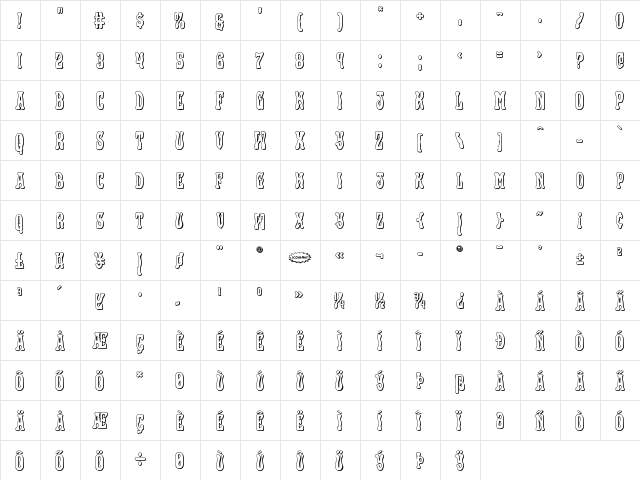
Black Gunk 3D Regular
Design Context for Black Gunk 3D Typeface
Black Gunk 3D is a composed and adaptable typeface that performs quietly and consistently across a wide range of design contexts.